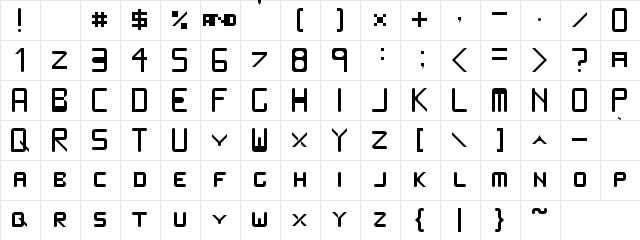
Hellow World Regular
| Designer | supamact |
Design Context for Hellow World Typeface
Hellow World offers clean, dependable letterforms without strong stylistic allegiance, making it a practical choice for designers who need flexibility.